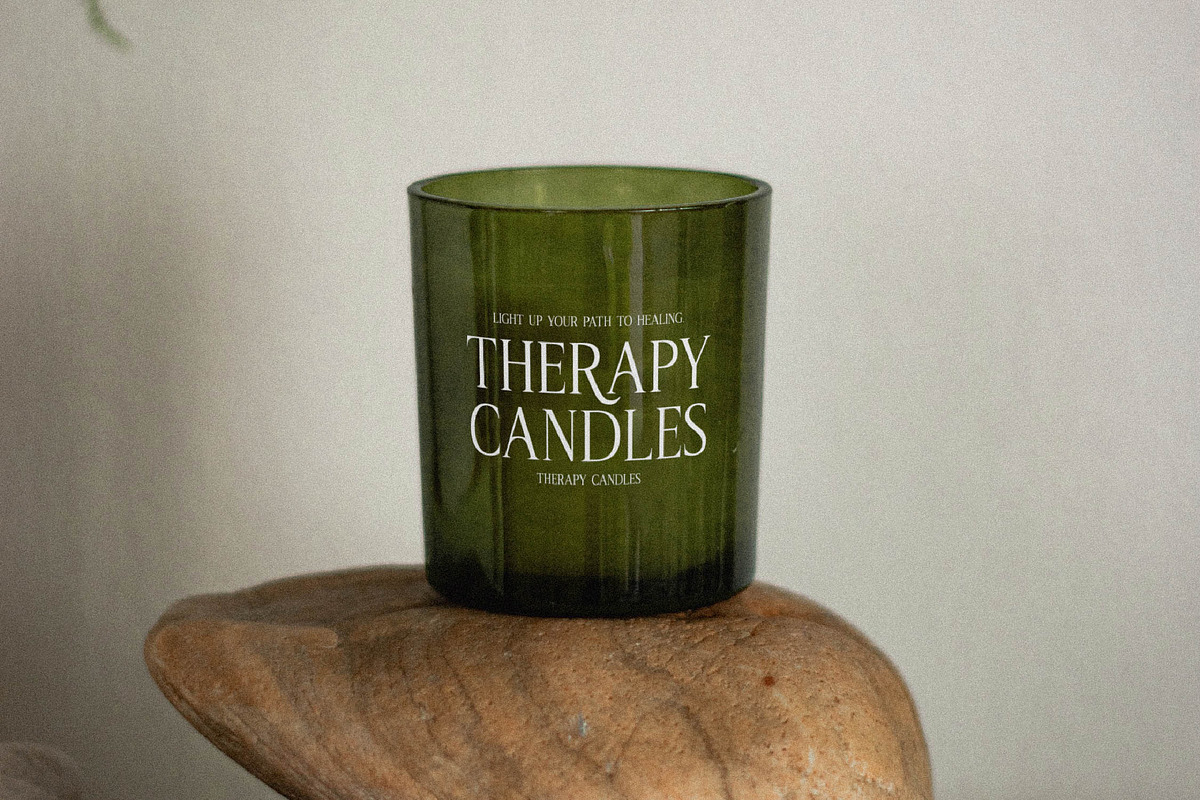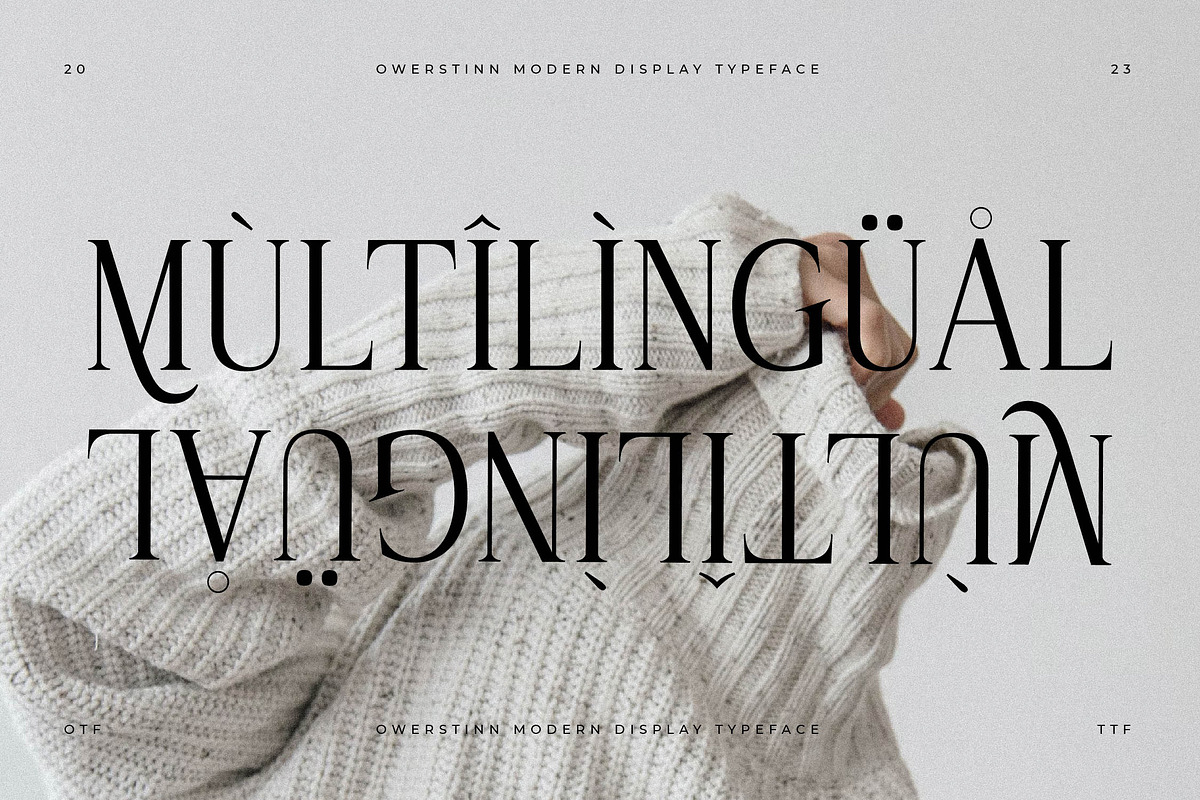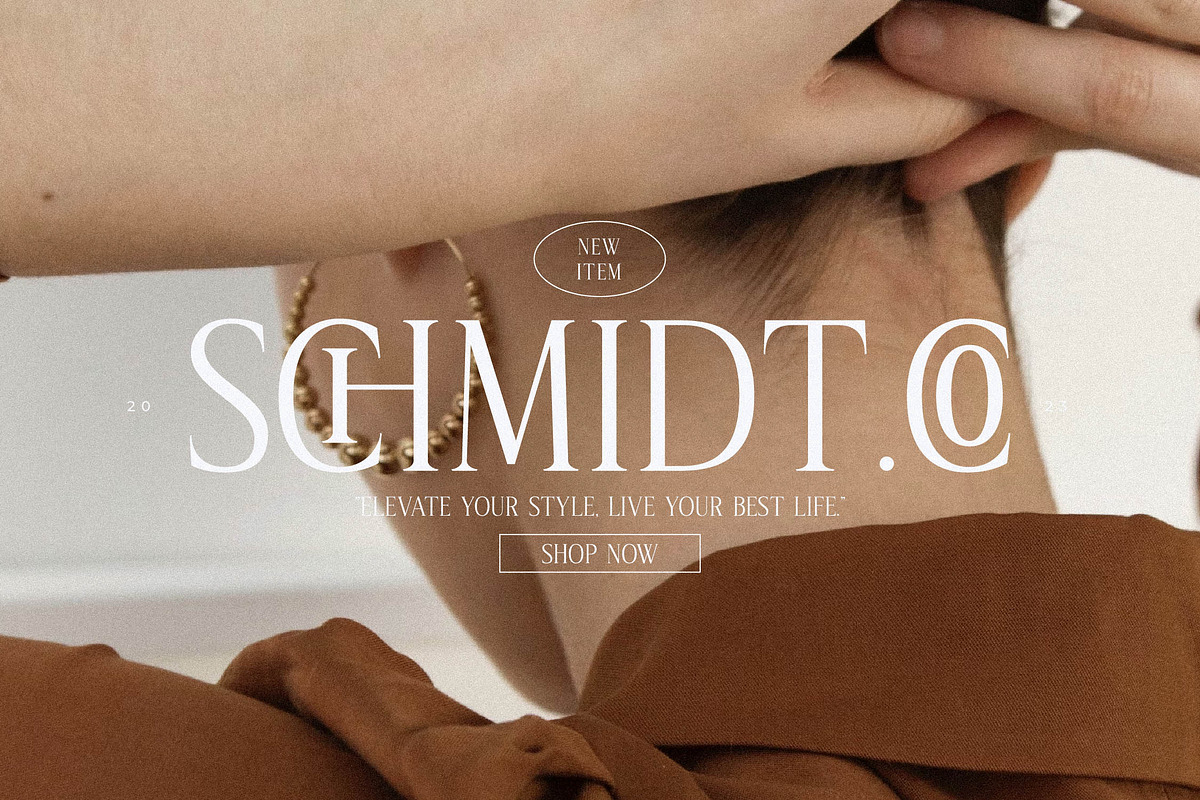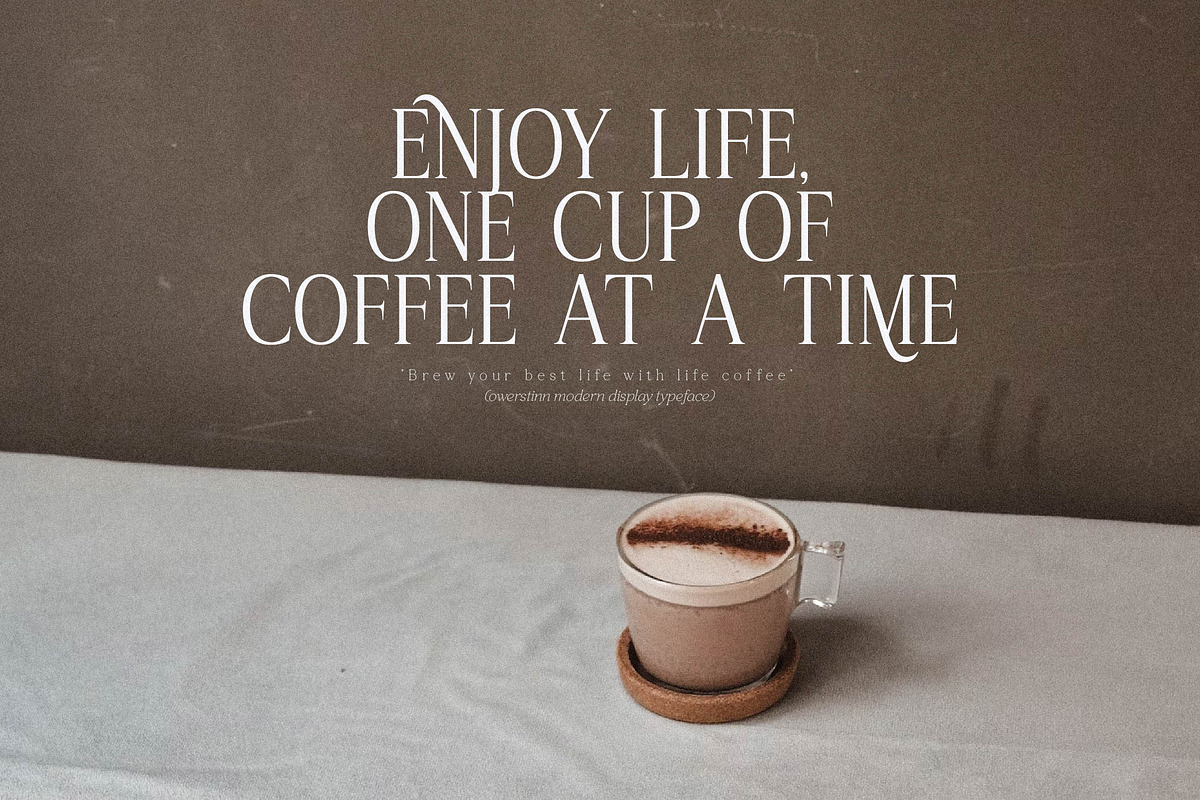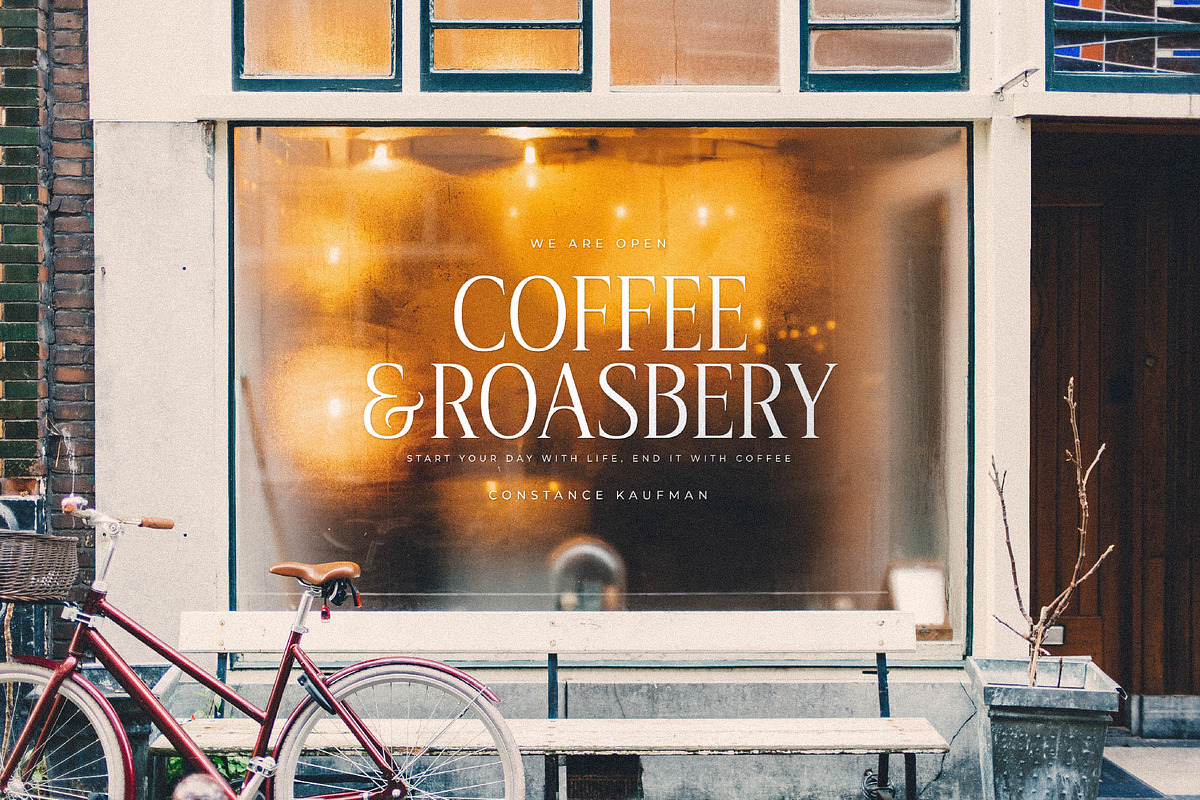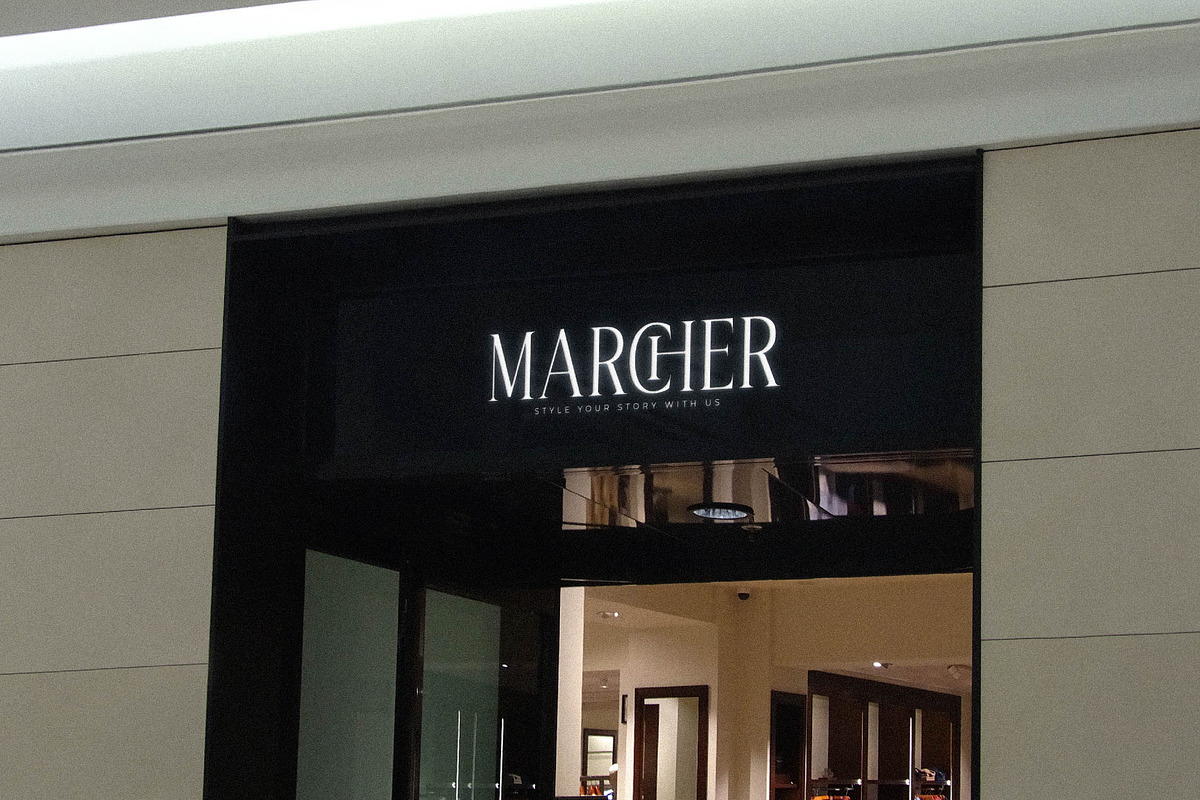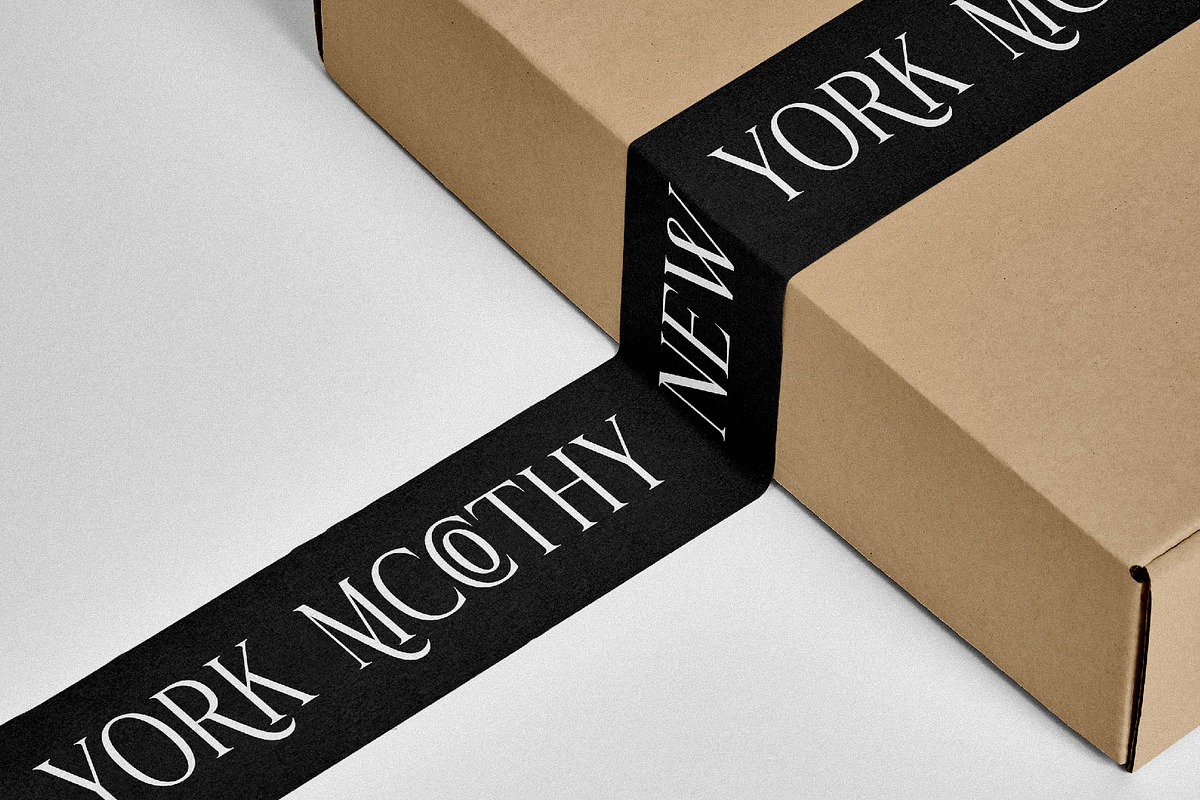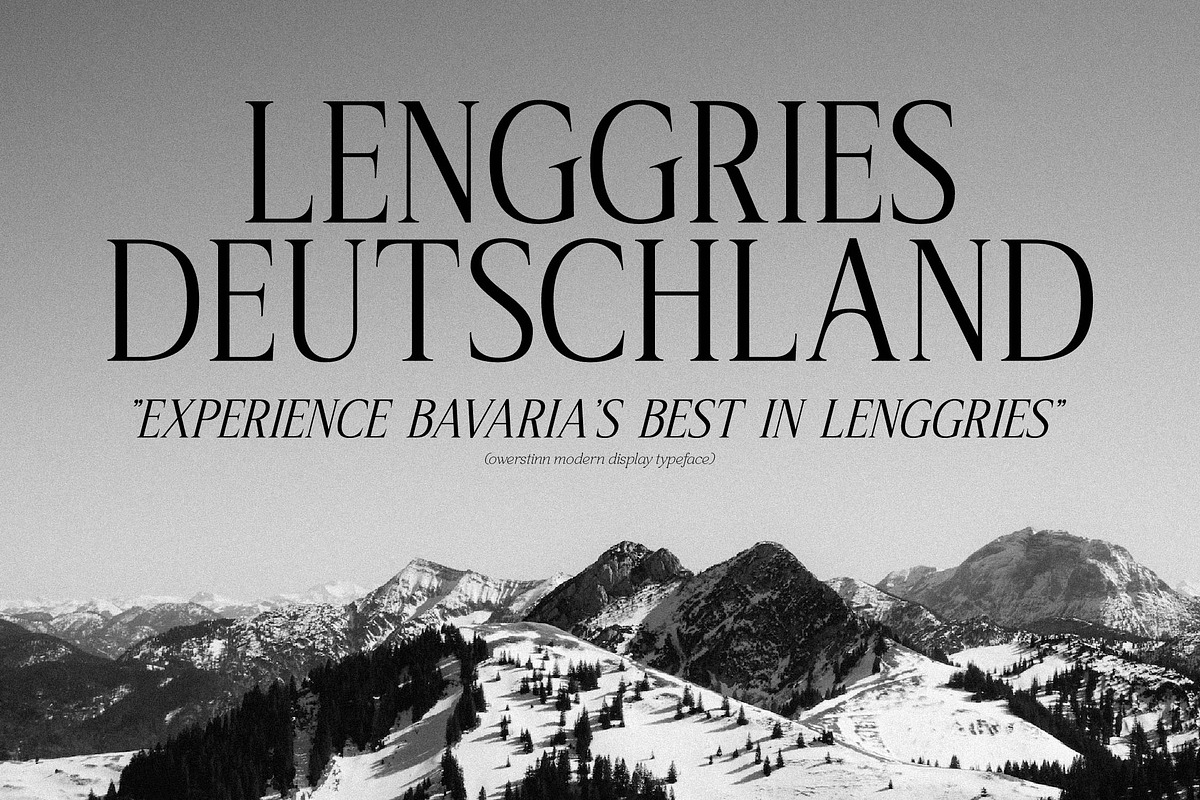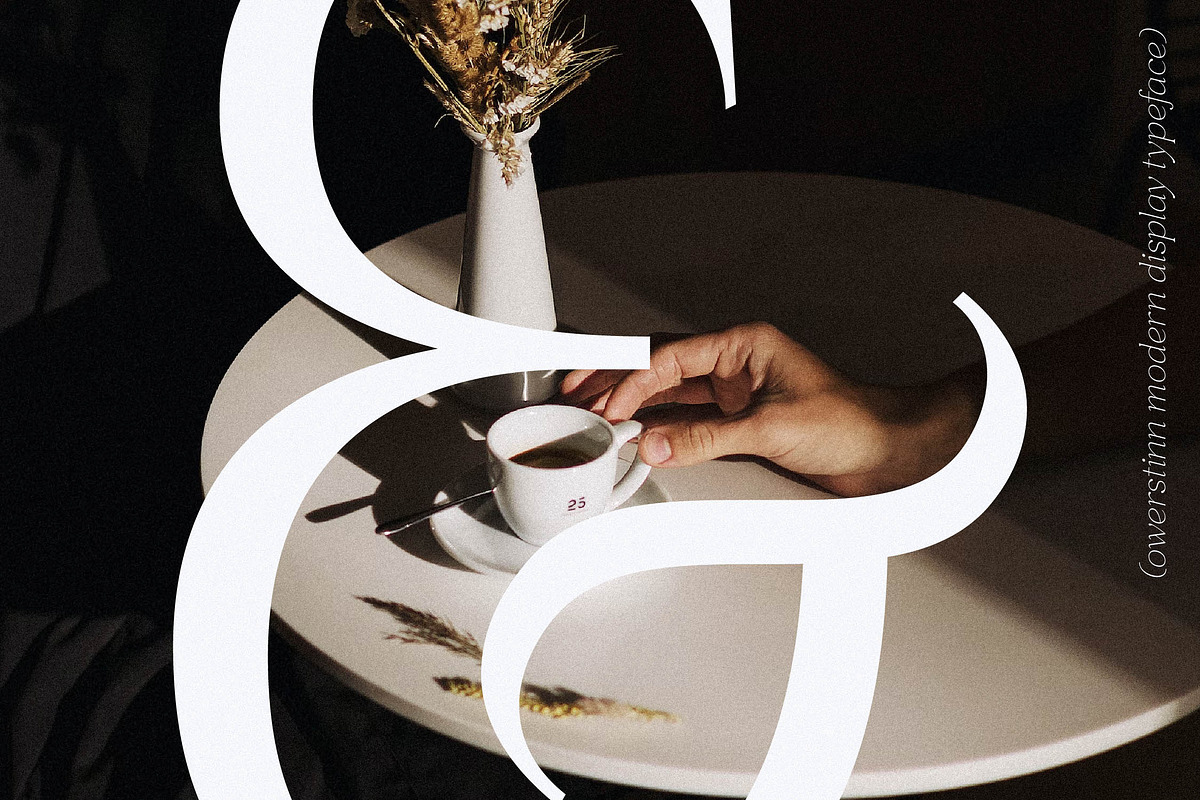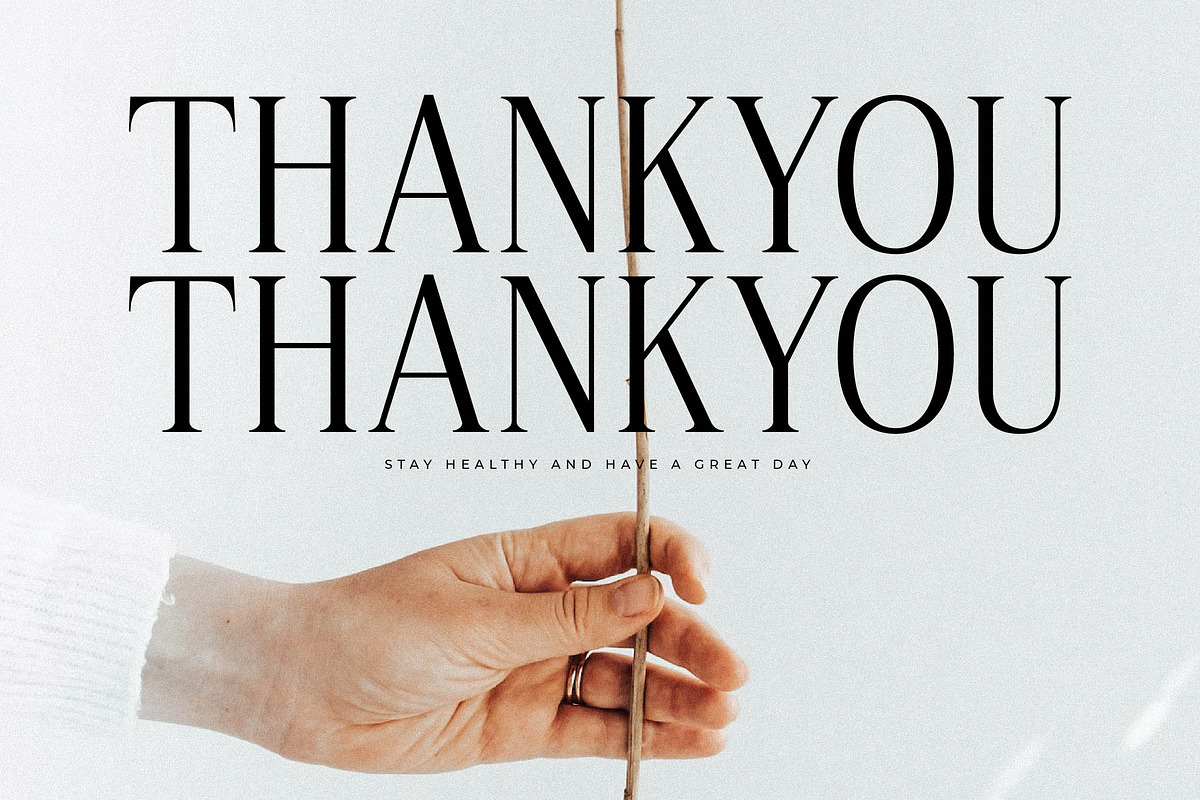
Owerstinn Modern Display Typeface
Proudly present OWERSTINN Typeface , created by Storytype, A serif modern and classic typeface that has own unique style & modern look. This typeface is perfect for an elegant & luxury logo, book or movie title design, fashion brand, magazine, clothes, lettering, quotes, and so much more.